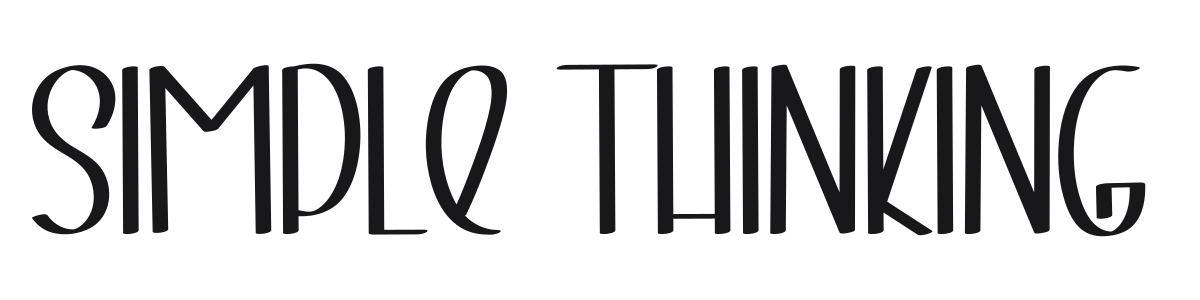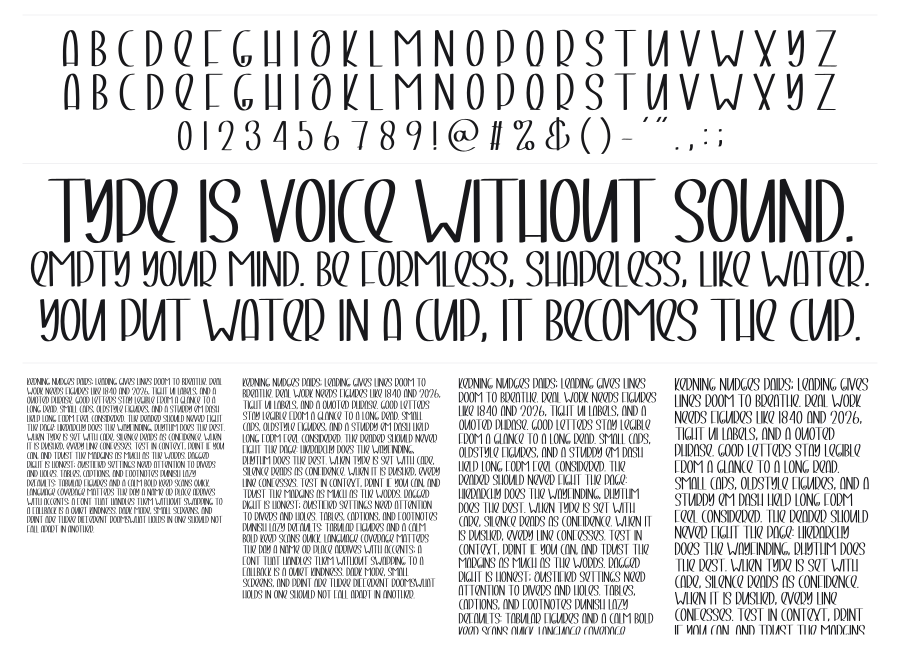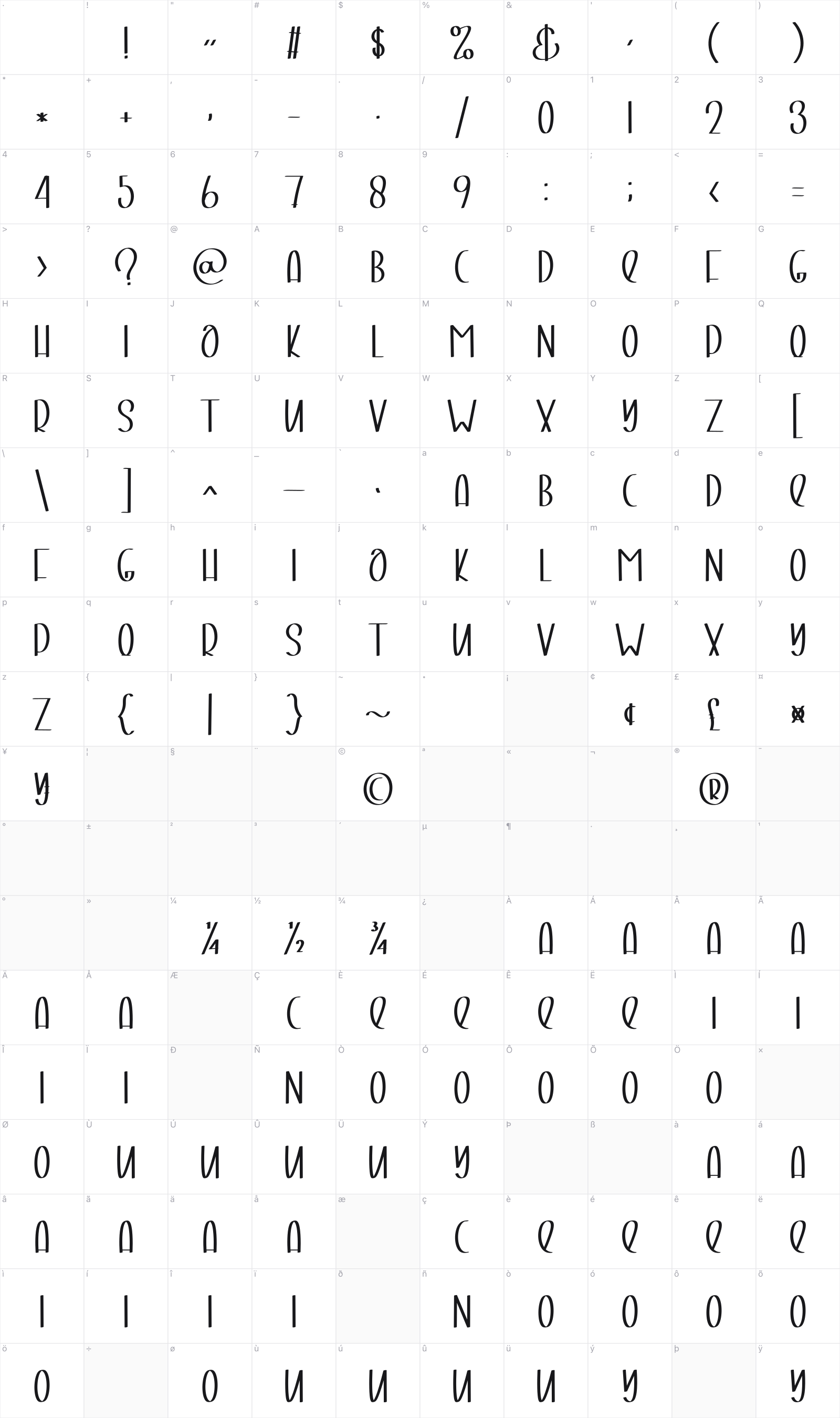
Simple Thinking
by PiPi Creative STUDIO
Simple Thinking is a tall, condensed display sans with an art deco sensibility and a handcrafted twist. The mix of clean terminals and small spurs across different characters creates a playful inconsistency that gives it real personality at headline sizes. It reads vintage without being stiff, which makes it at home on packaging, logos, and editorial work.